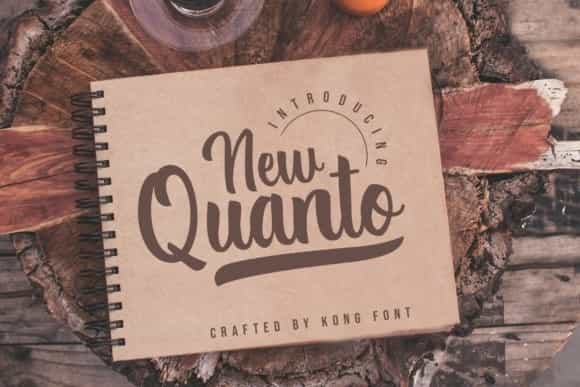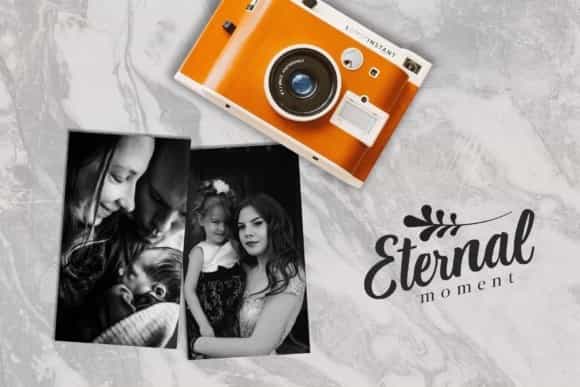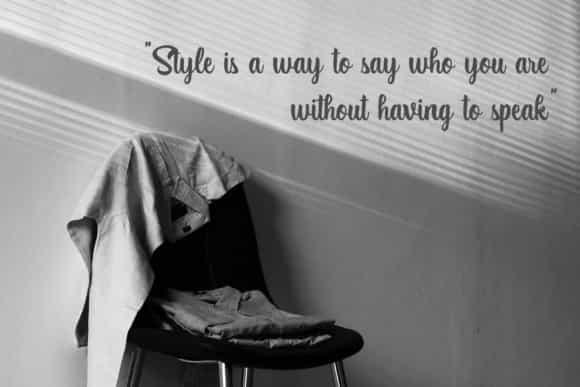
Quanto Modern Script Font
Quanto – This is a modern, cursive font with the elements of vintage swirls and brush work, providing the style with a random brush stroke writing, elegant layout. These are types of fonts that are just great to look at! It can be adopted in any of the numerous poor quality articles. for headings, signatures, logos, wedding invitations, T-shirts, business cards, instruction booklets, cards posing as letters, and posters, badges sides and so on.